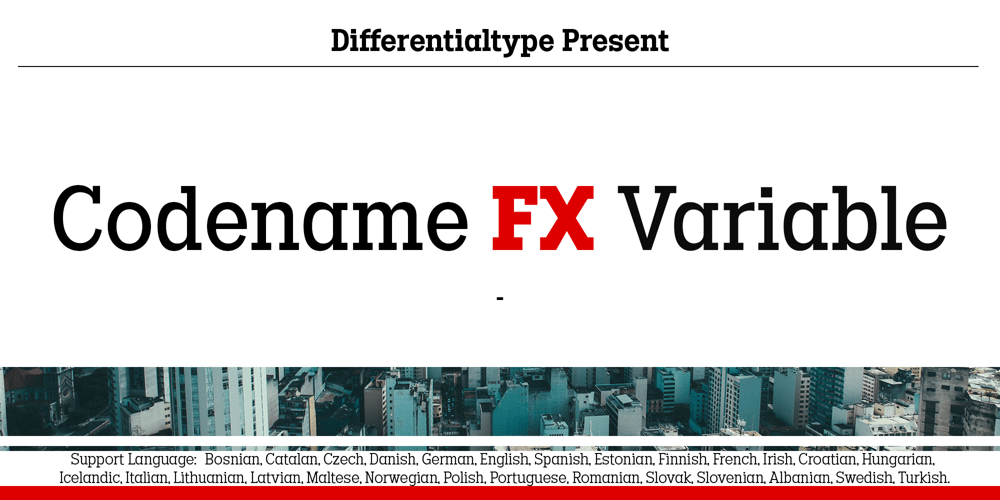
Codename FX Variable
Codename FX Variable font
Codename FX Variable Font Family was designed by Sidik Sidik and published by Differentialtype. Codename FX Variable contains 1 styles and family package options. Introducing Codename FX Variable, a geometric slab serif font pulsating with dynamism. Perfectly crafted for a broad spectrum of design applications, this multi-faceted font is an ideal fit for radiant advertisement boards, mighty billboards, striking posters, persuasive pamphlets, distinct brand logos, and beyond. The font spectrum of Codename FX Variable wonderfully varies from a delicate thin to a commanding black, further enhanced with an elegant italic option. Infuse this font into your designs, echoing modernity and boldness, ensuring your work captures attention and leave an indelible impression